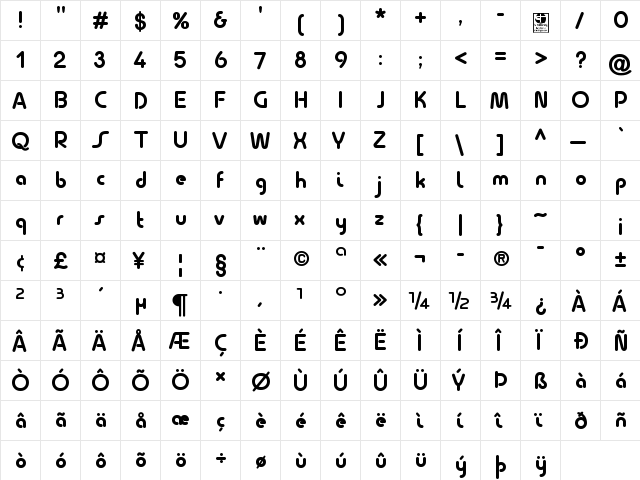
Quesat Demo Bold
| Foundry | StudioTypo |
| Designer | Mehmet Abac |
Design Context for Quesat Demo Typeface
Quesat Demo takes a measured approach to typography — its balanced proportions and neutral character make it a reliable workhorse for both digital and print work. The heavy weight commands attention and anchors typographic hierarchies.